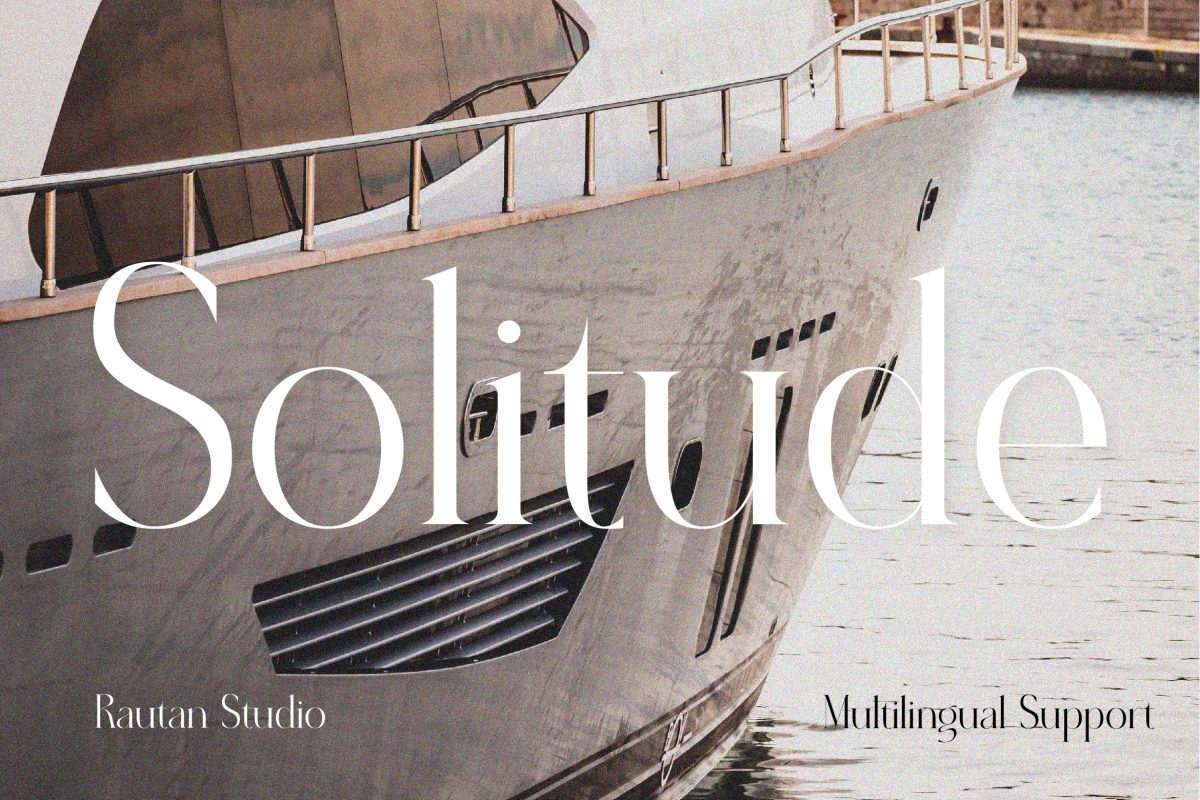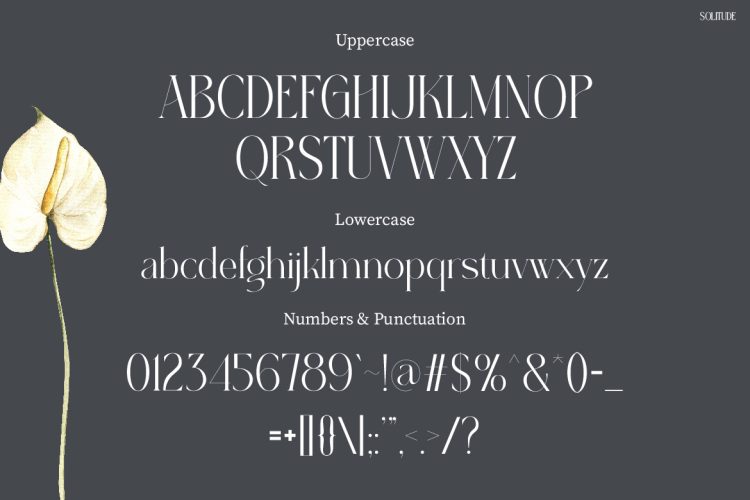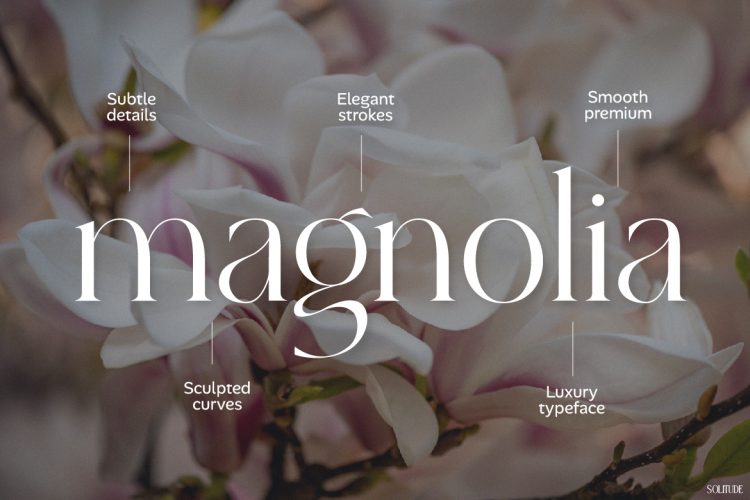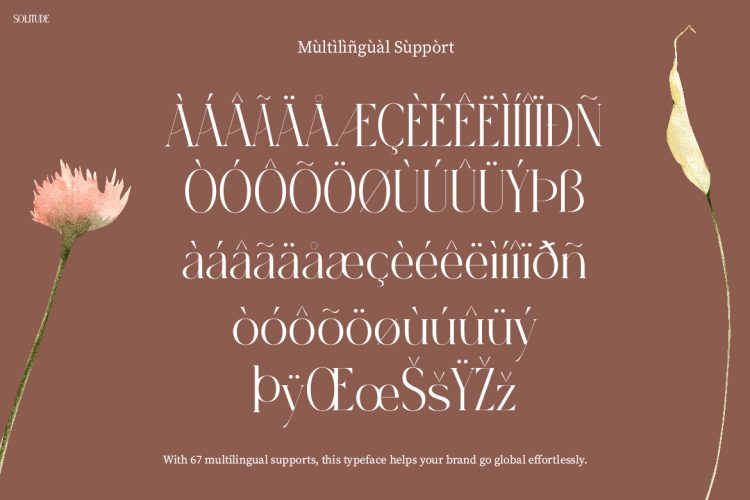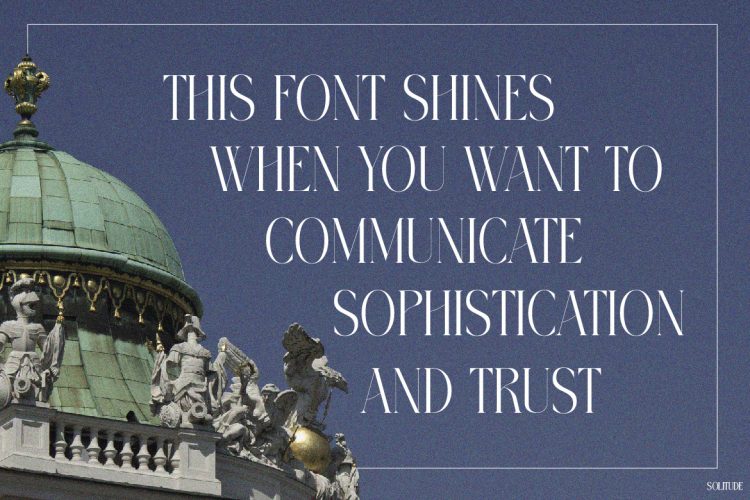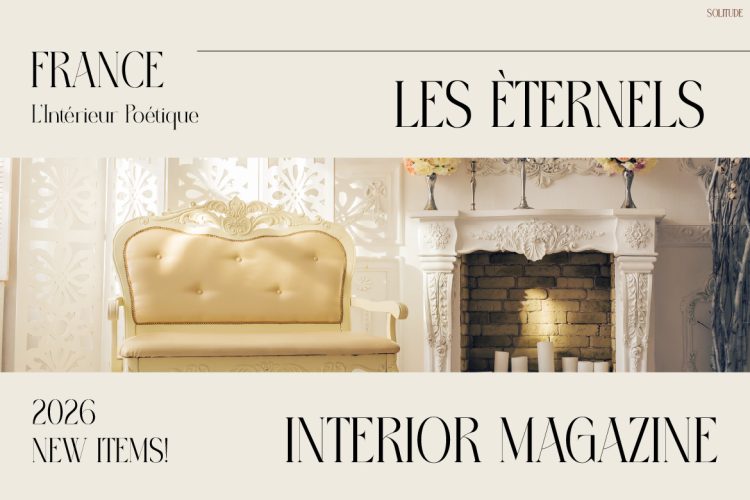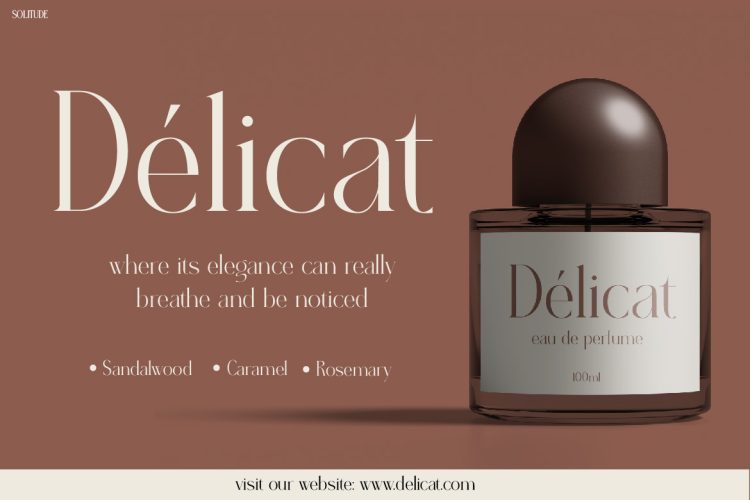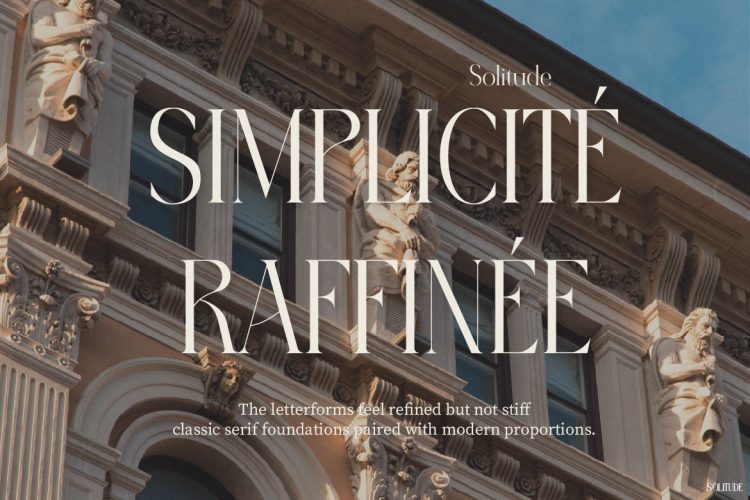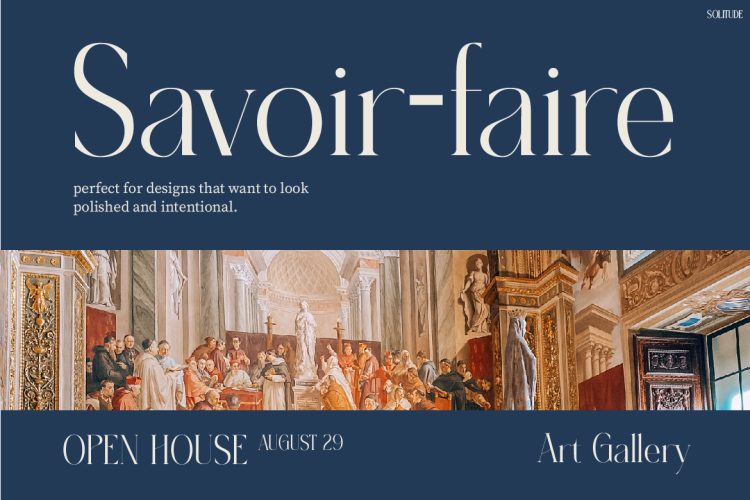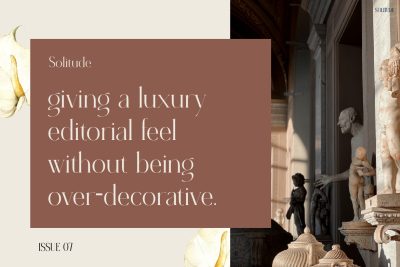
Instagram Fontย SOLITUDE โ Elegant Storytelling with Timeless Calm
Instagram Font Solitude expresses quiet luxury through refined serif letterforms that feel elegant, calm, and emotionally rich. From the first glance, this font communicates sophistication through high-contrast strokes and graceful curves. Moreover, its balanced proportions help every word appear intentional and beautifully spaced. Instead of overpowering the layout, Solitude gently guides the readerโs eye. As a result, text feels lighter, more expressive, and easier to absorb. At the same time, its clean structure supports strong readability, making it suitable for both visual storytelling and functional typography.
Why Solitude Stands Apart
Instagram Font Solitude blends classical inspiration with modern usability, therefore creating a typeface that feels timeless yet relevant. Additionally, its sharp serifs and smooth transitions give designs a premium editorial tone. Meanwhile, the font maintains clarity across digital screens and print media. Solitude supports 67 languages, which means brands can communicate globally without losing visual harmony. Furthermore, the carefully designed uppercase and lowercase sets allow flexible use in headlines, captions, and long-form text. Consequently, Solitude performs beautifully in magazine layouts, Instagram quotes, branding visuals, and lifestyle campaigns.
Who Should Use Instagram Font Solitude
Instagram Font Solitude works perfectly for Instagram creators, fashion brands, beauty labels, and lifestyle businesses. Moreover, interior designers, wedding planners, and boutique brands can use it to express refinement and trust. Graphic designers and creative studios will find Solitude ideal for lookbooks, packaging, editorial spreads, and promotional materials. In addition, cafรฉs, hotels, and premium service brands can rely on Solitude to create a calm and upscale atmosphere. Therefore, anyone who values elegance, clarity, and emotional tone will benefit from this font.
Elevate Your Visual Narrative
Instagram Font Solitude helps your content feel thoughtful, curated, and timeless. As a result, your brand appears more refined and emotionally engaging. If you want a font that enhances storytelling, supports global languages, and elevates visual identity, Solitude is a smart investment. Ultimately, this font turns simple words into elegant statements that leave a lasting impression.